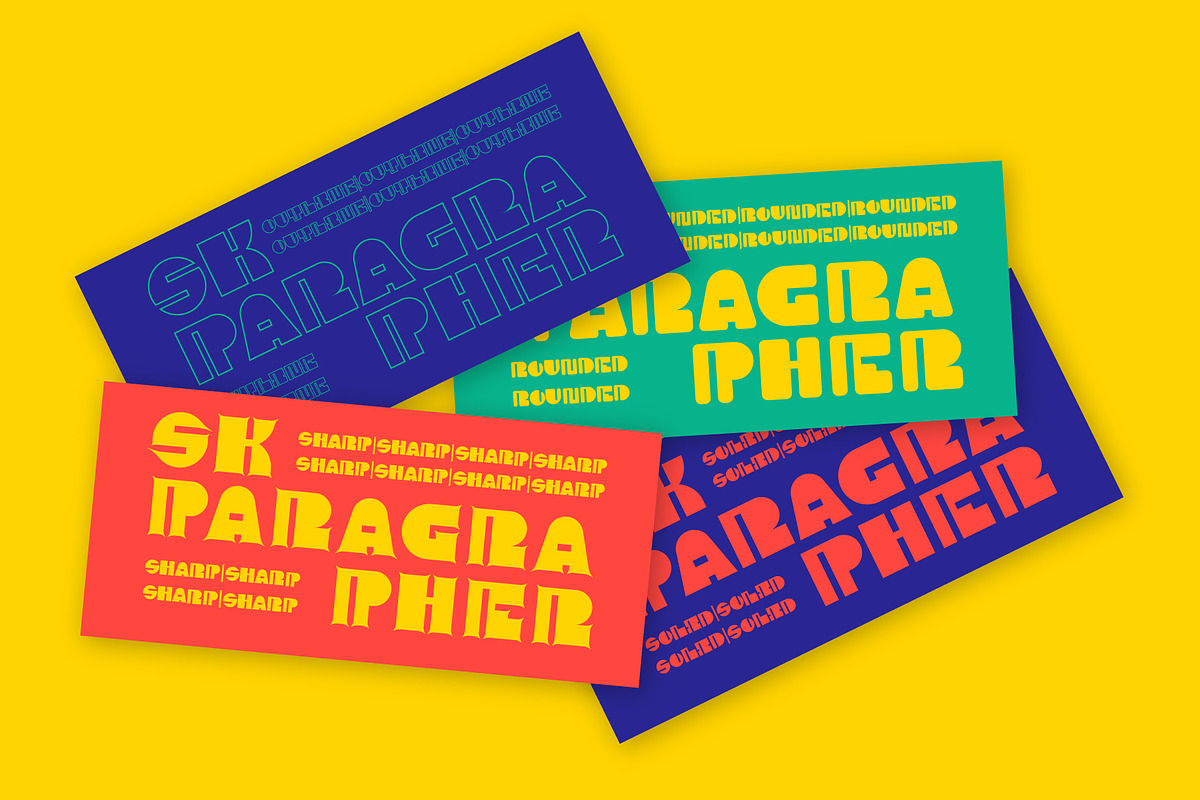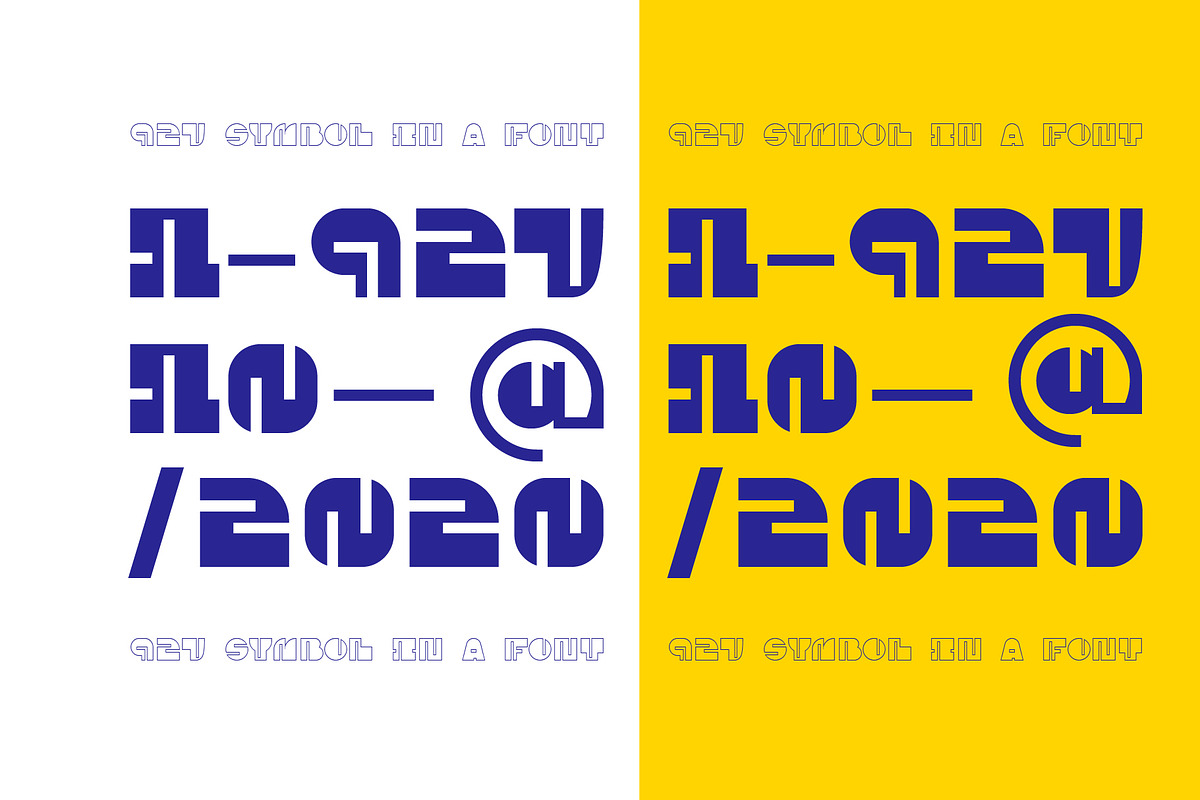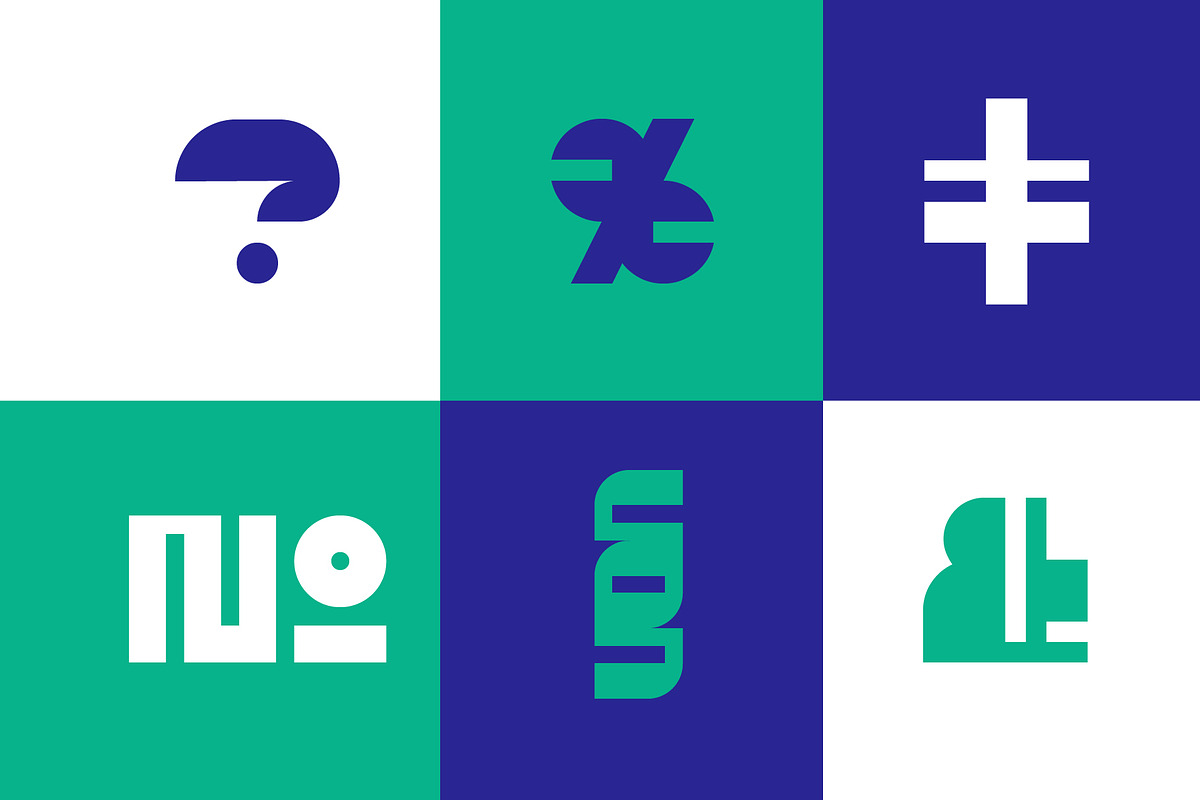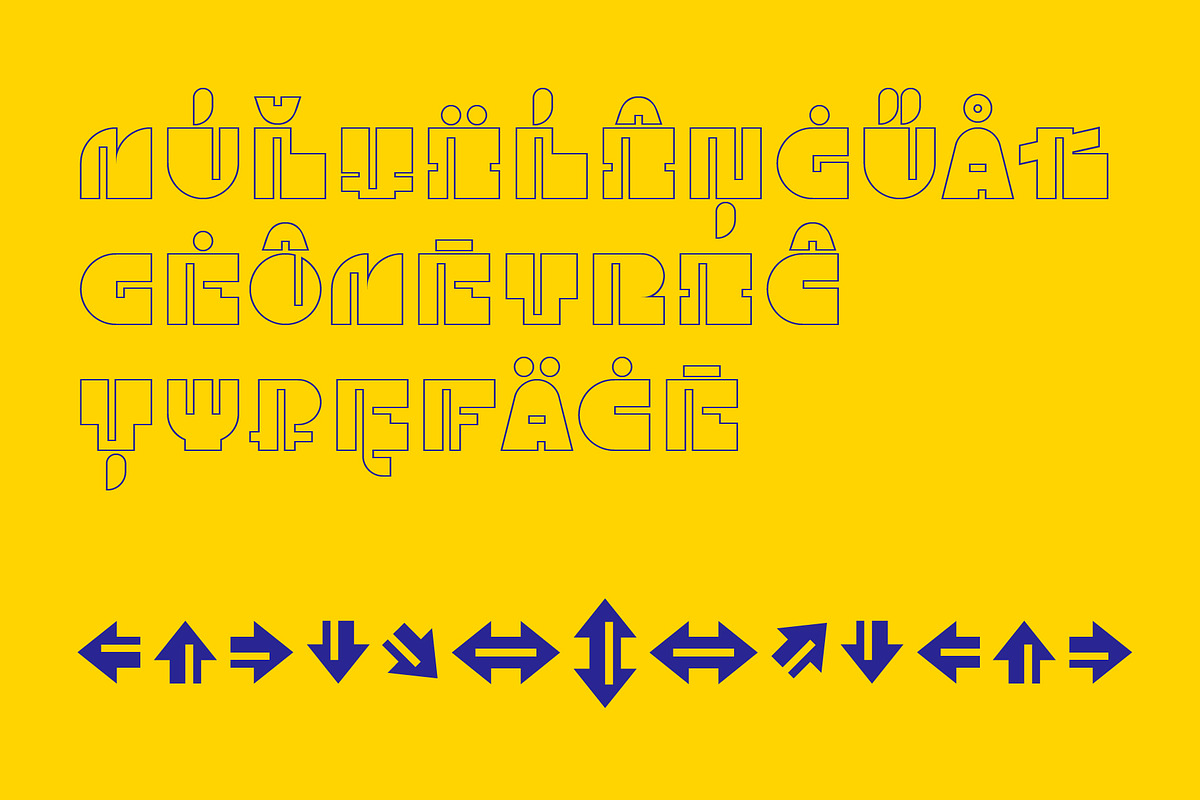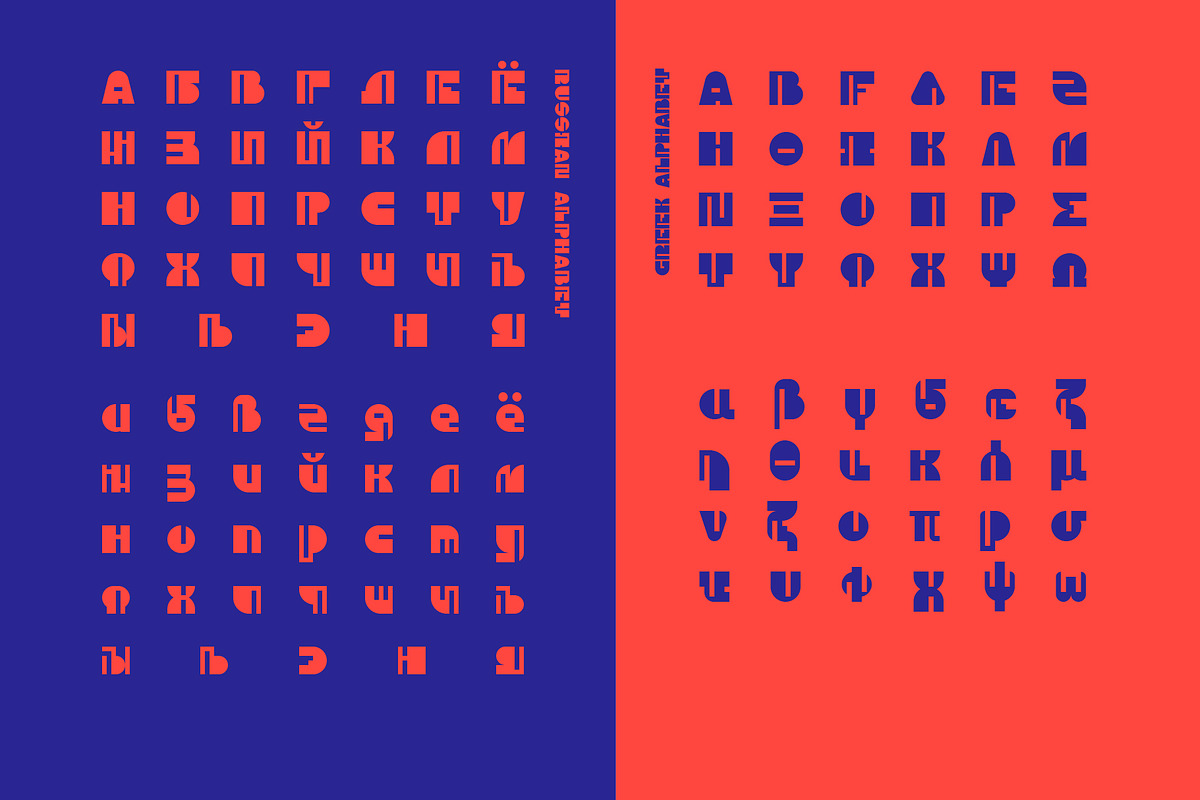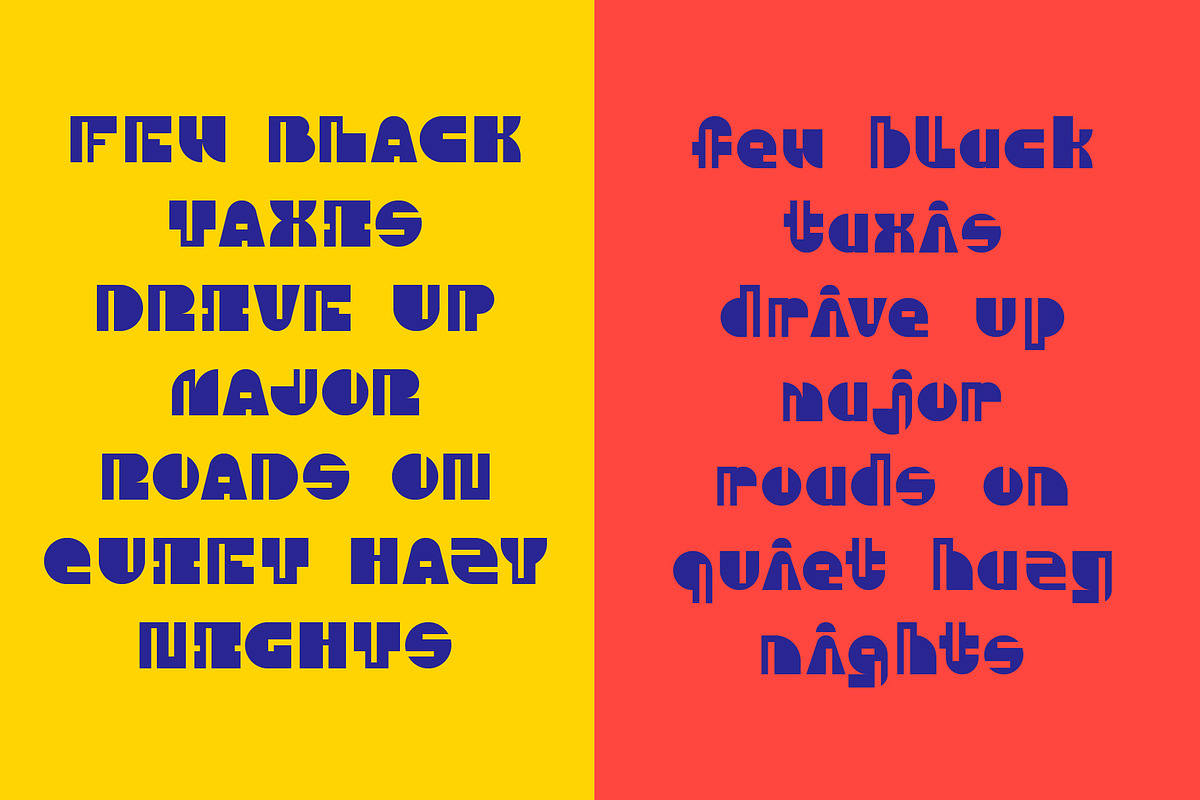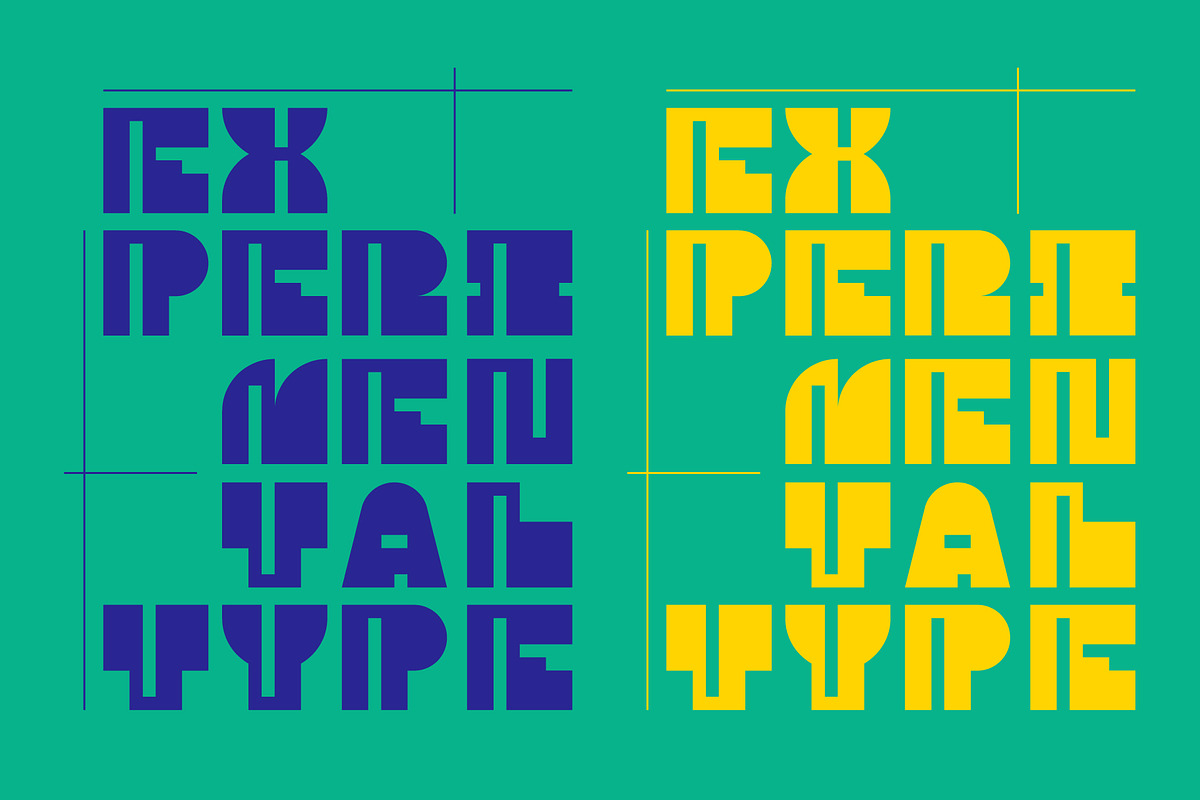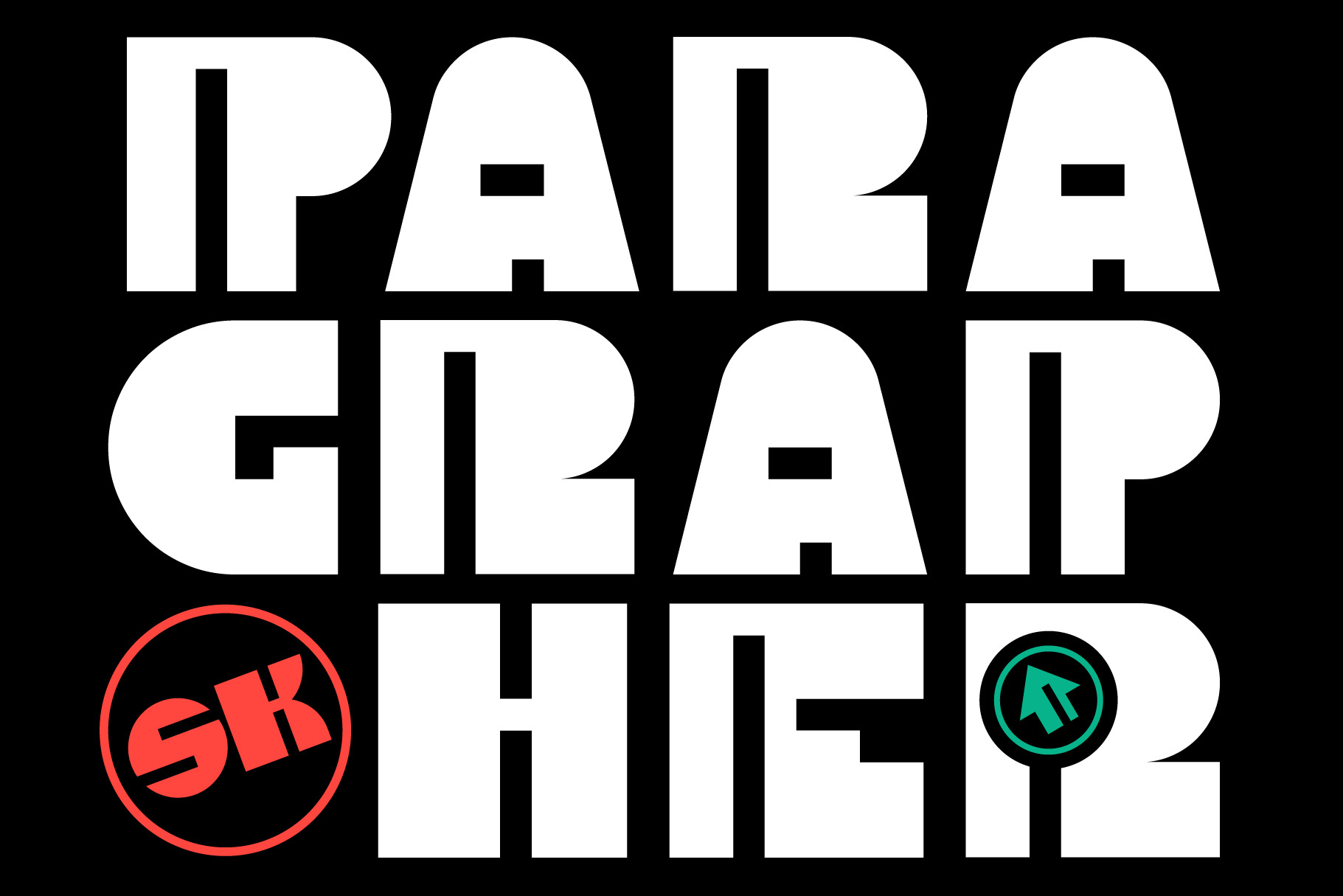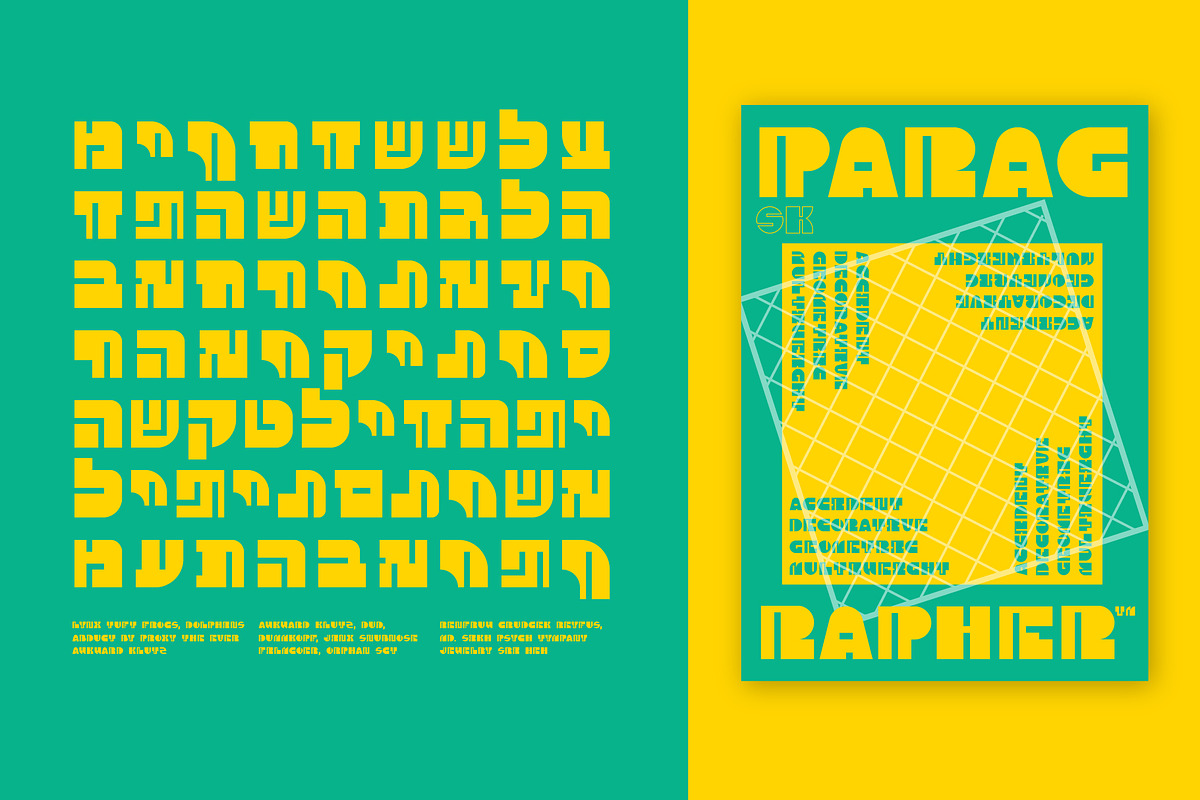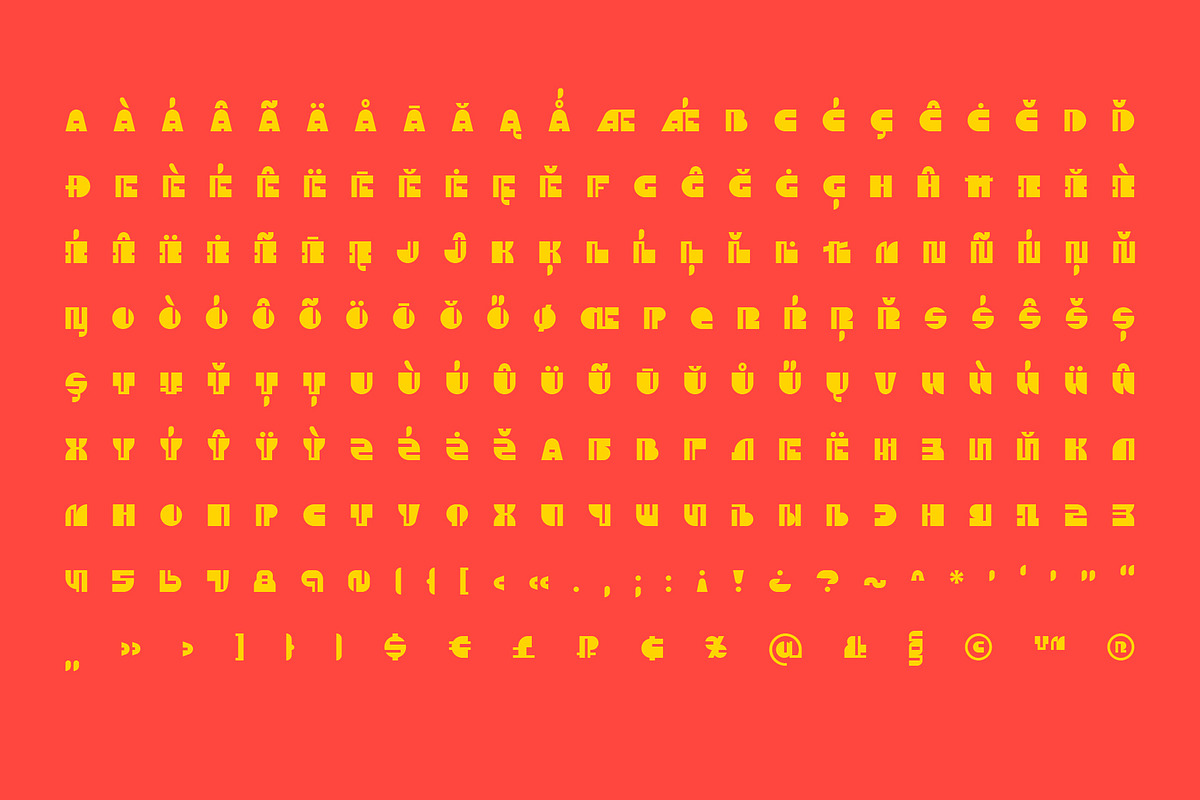
SK Paragrapher — Heavy Modern Font
SK Paragrapher is a monumental geometric typeface whose structure was inspired by the paragraph glyph. The entire typeface is built on a rhythmic composition and a black-to-white balance. Each character corresponds to a grid, and all its characters are monospaced, so the typeface looks harmonious and complete, despite the complexity of perception of its appearance. This typeface has both uppercase and lowercase letters, as well as a capital! The typeface supports a multilingual layout that includes: extended Latin and Cyrillic characters, additional characters, and Hebrew. This typeface also includes more than 10 currency symbols, as well as 4 fonts: Solid, Outline, Rounded, Sharp! As a result, SK Paragrapher is a multilingual, monospaced geometric monumental typeface that contains almost 1000 glyphs for your any design work, be it a poster or a website!**